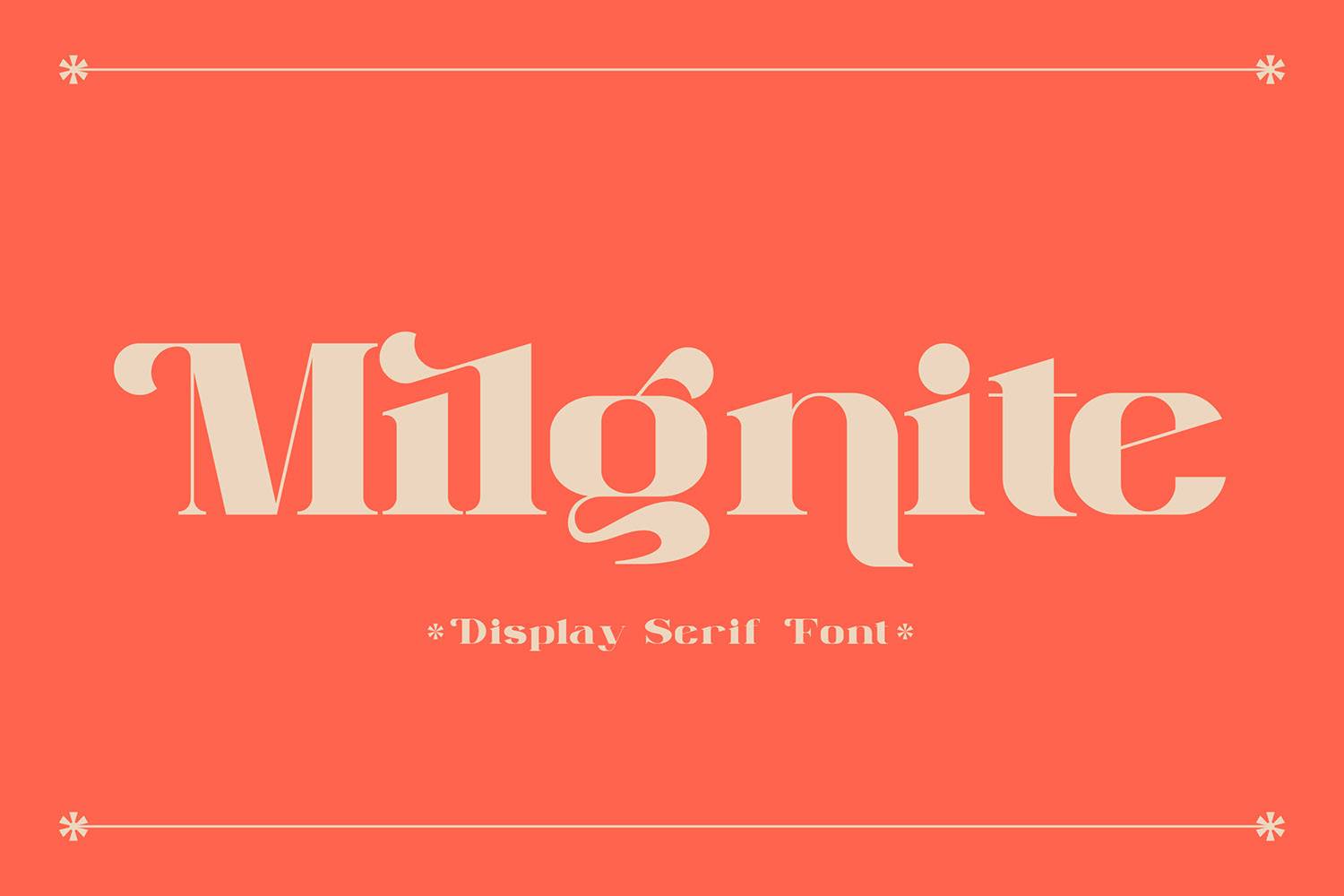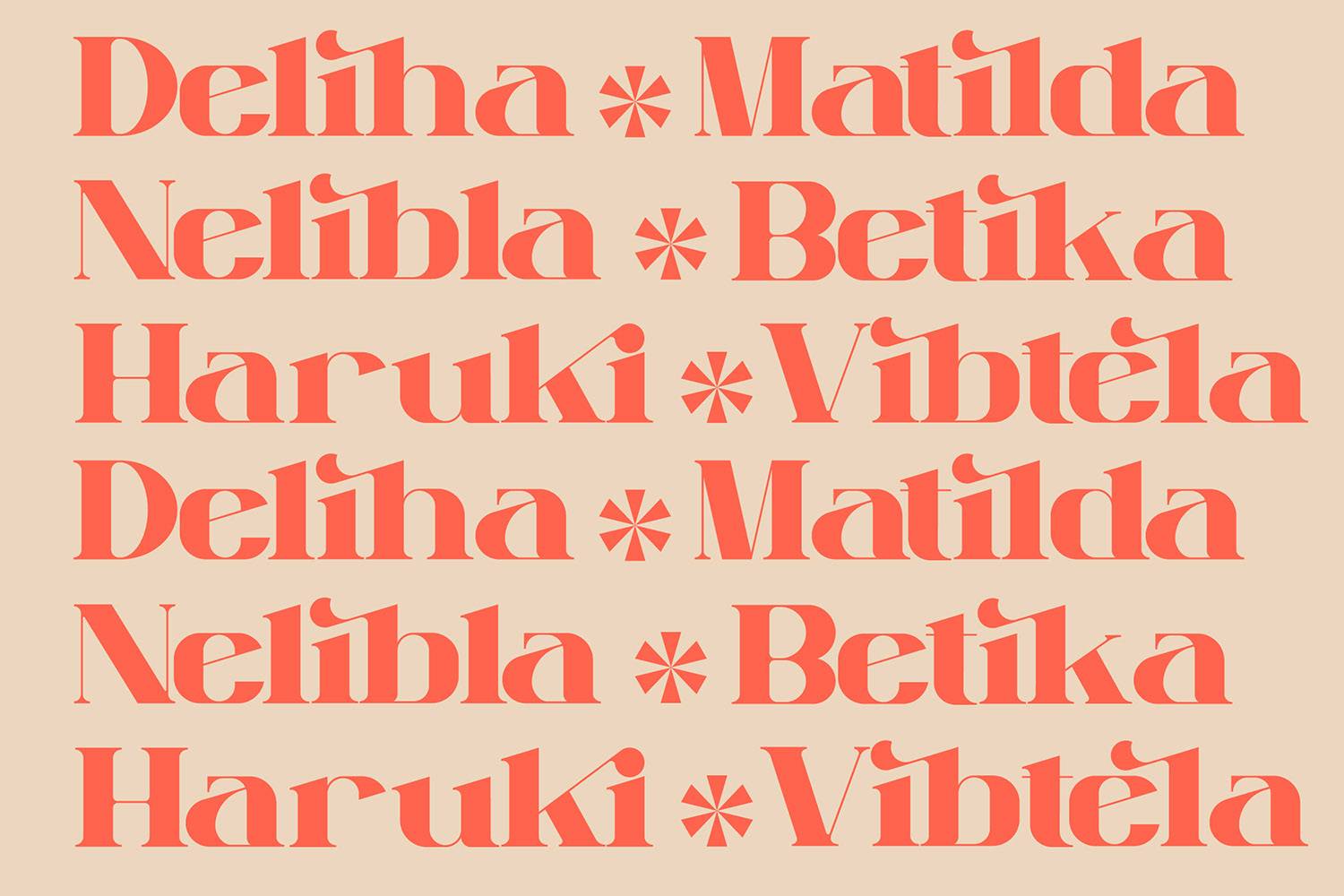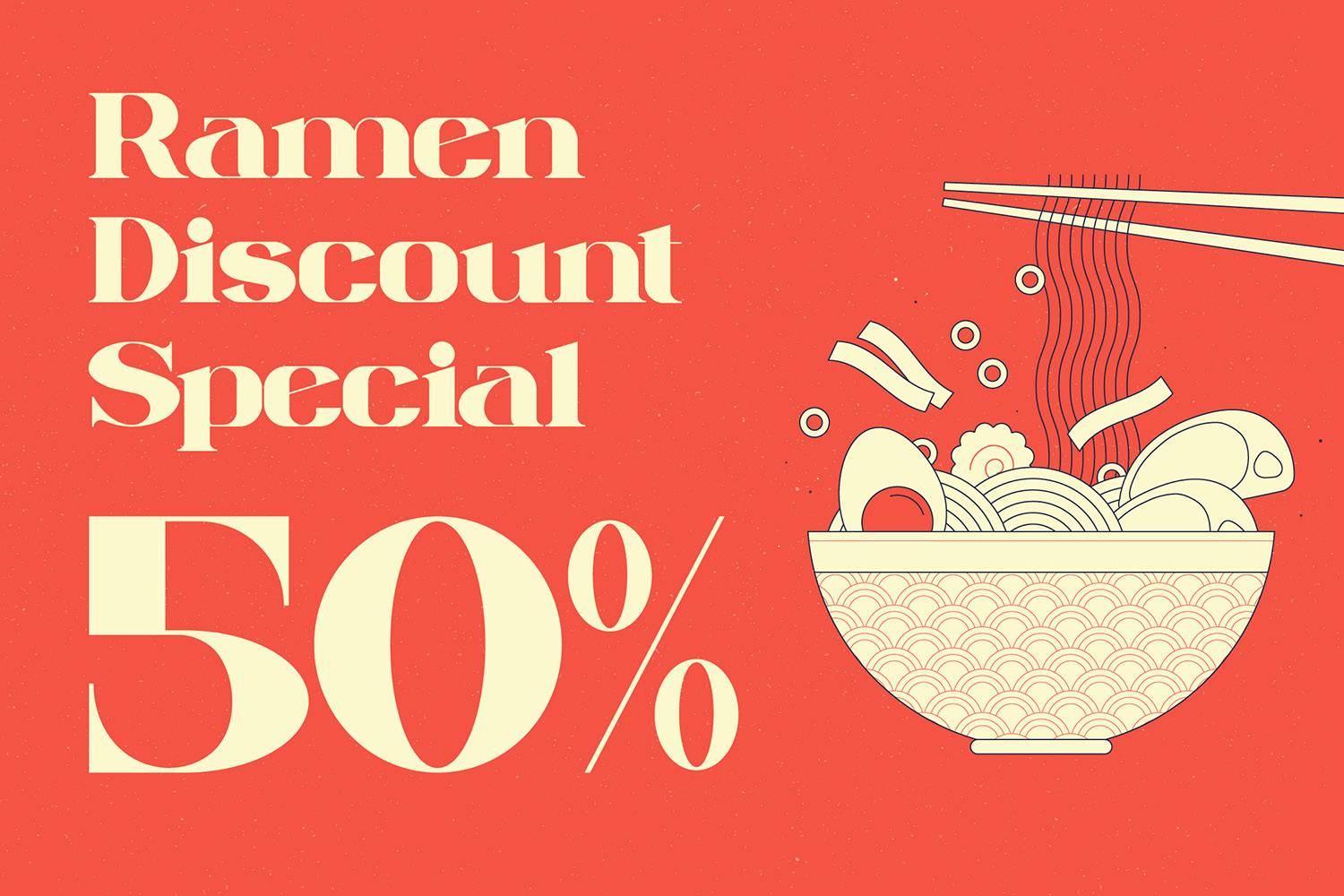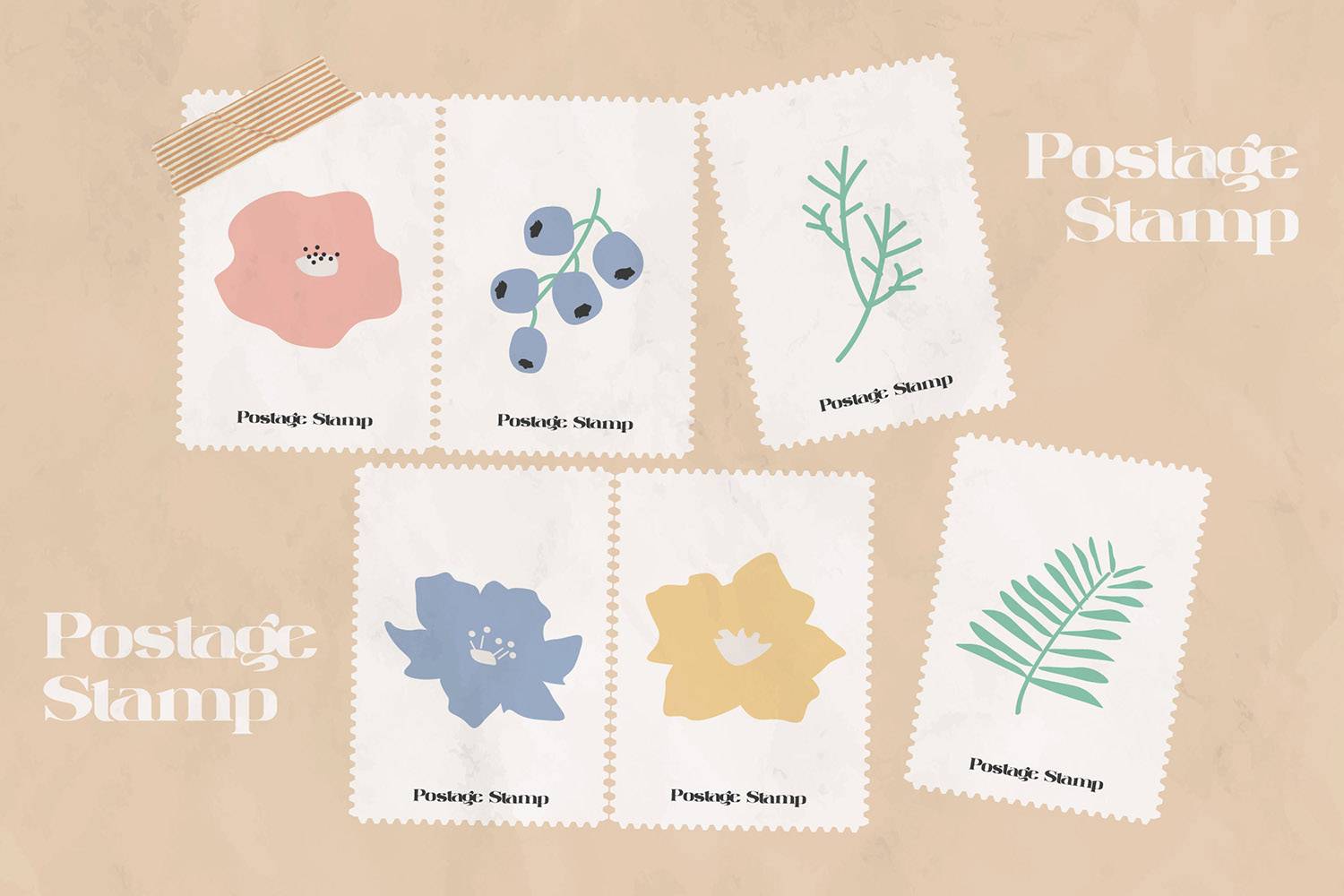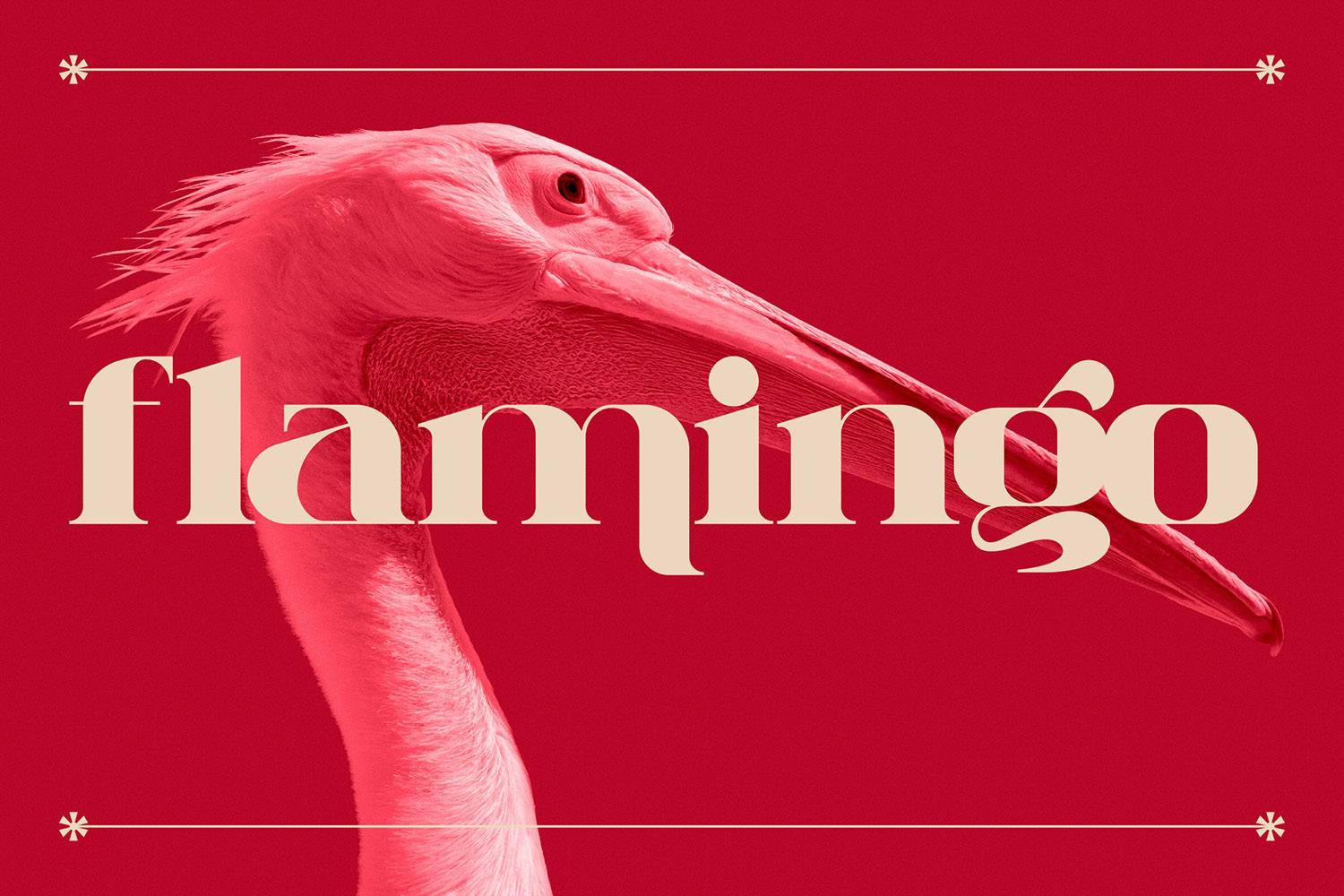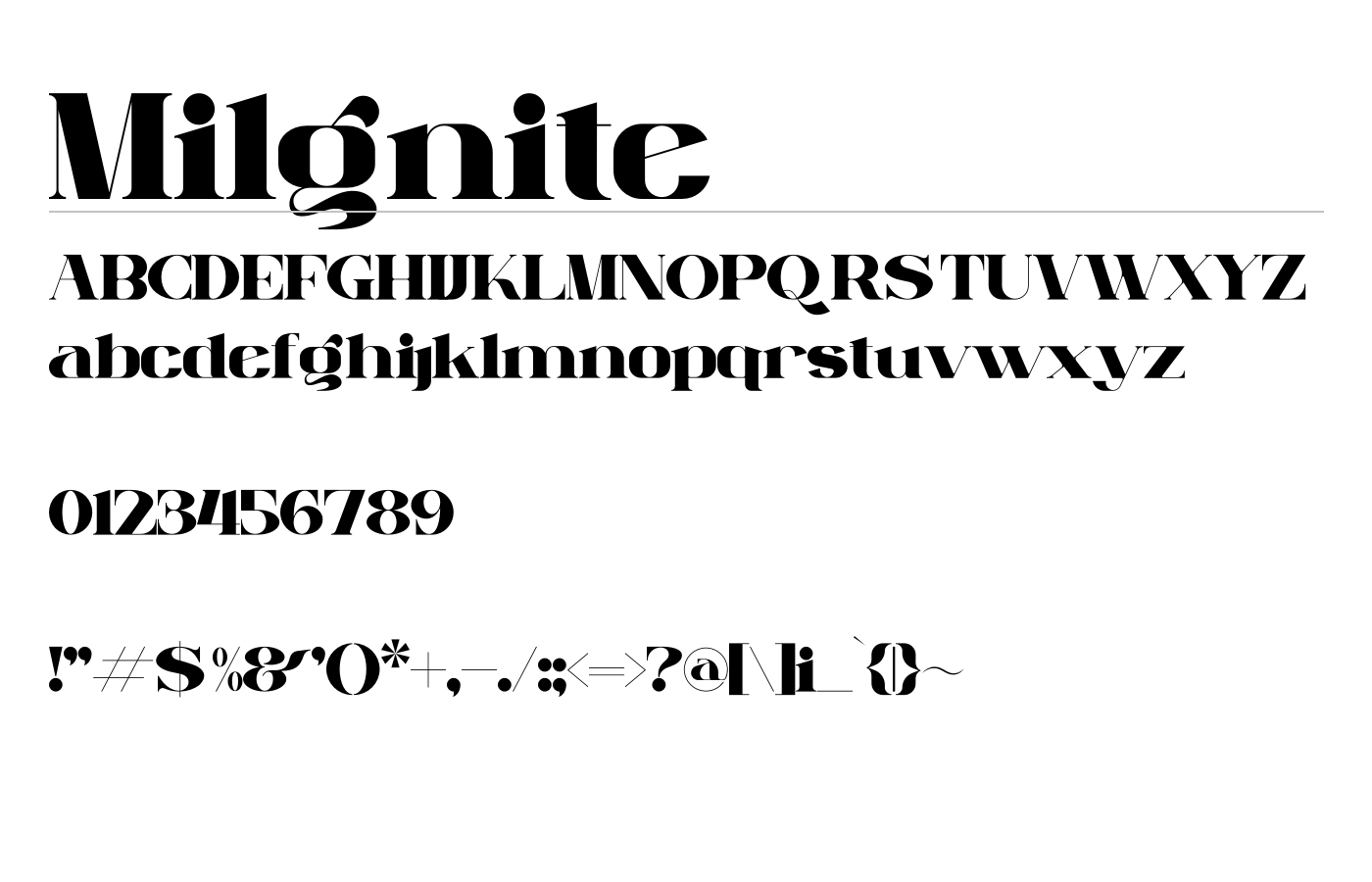
Milgnite is a modern Didone serif font characterized by its high contrast between thick and thin strokes and elegant, sharp serifs that add a luxurious, sophisticated feel. With its bold weight, condensed width, and distinctive letterforms—such as the unique tail on the lowercase "g" and the stylish ampersand—it works beautifully for upscale branding, editorial headlines, and fashion-focused designs that seek a refined yet striking look. This font’s airiness combined with its strong presence makes it perfect for making a bold statement in both print and digital media.
Milgnite Font
About Milgnite Font